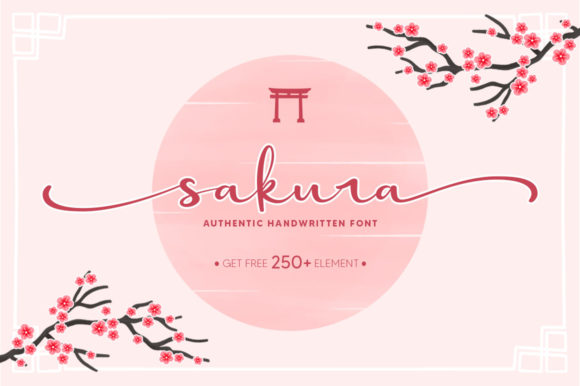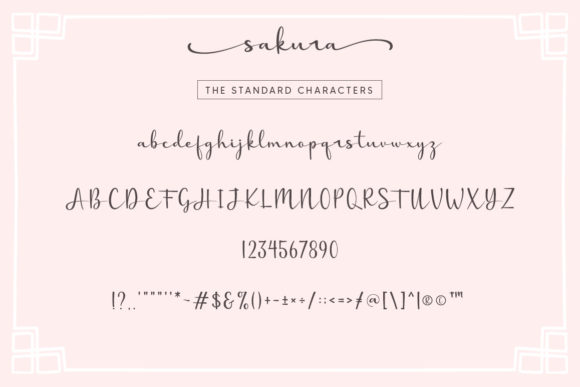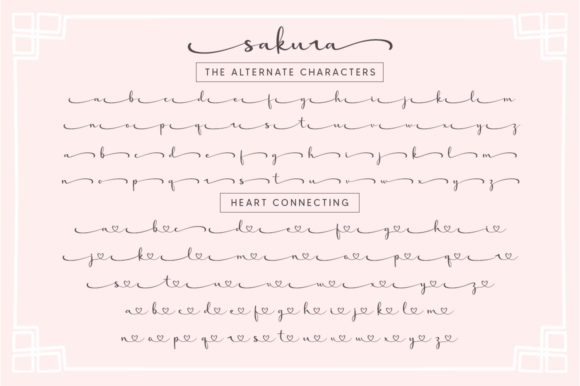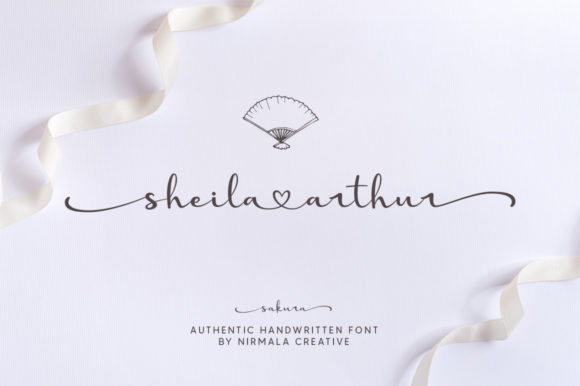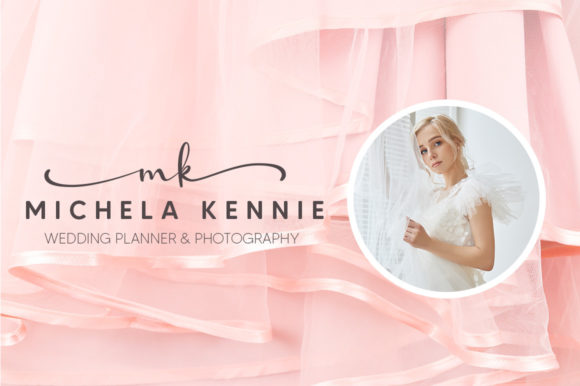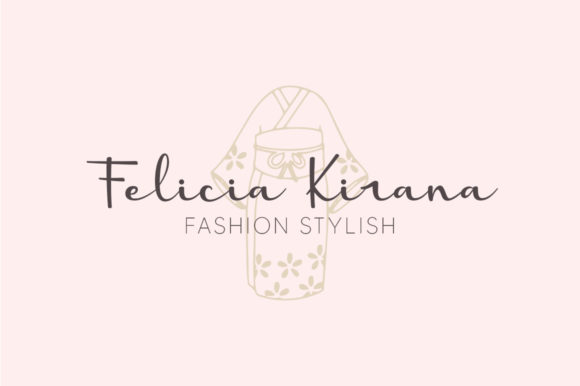
About Sakura Font
Sakura is a refined and elegant handwritten font that brings a touch of sophistication and romance to your designs. With its delicate and graceful letterforms, this font is perfect for creating beautiful wedding invitations, cards, and any other designs that require a romantic and personalized touch.
The beauty of Sakura lies in its dainty and joyful style. Each letter is meticulously crafted, capturing the essence of hand-drawn calligraphy. The flowing strokes and subtle curves evoke a sense of elegance and grace, making it an ideal choice for special occasions like weddings, anniversaries, or heartfelt messages.
With Sakura, you have access to a wide range of glyphs and swashes, thanks to its PUA encoding. This means you can easily access and incorporate decorative elements, ligatures, and alternate characters into your designs, adding more versatility and customization options.
Whether you’re designing wedding invitations, love letters, greeting cards, or any other romantic-themed project, Sakura is designed to enhance the beauty and charm of your creations. Its refined and elegant aesthetic creates a captivating visual impact, leaving a lasting impression on your audience.
The versatility of Sakura extends beyond romantic designs. It can also be used in various branding projects, logos, packaging, and more. Its timeless appeal and delicate nature make it suitable for a wide range of applications where a touch of elegance and sophistication is desired.
In conclusion, Sakura is a refined and elegant handwritten font that exudes romance and personalization. Its dainty and joyful style makes it a perfect choice for wedding invitations, cards, and other designs that require a touch of sophistication. With its PUA encoding, you have access to a variety of decorative elements and alternate characters to enhance your designs. Let Sakura bring a sense of elegance and beauty to your creations.